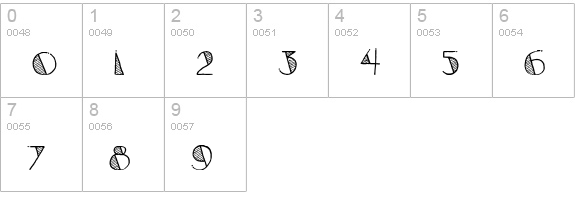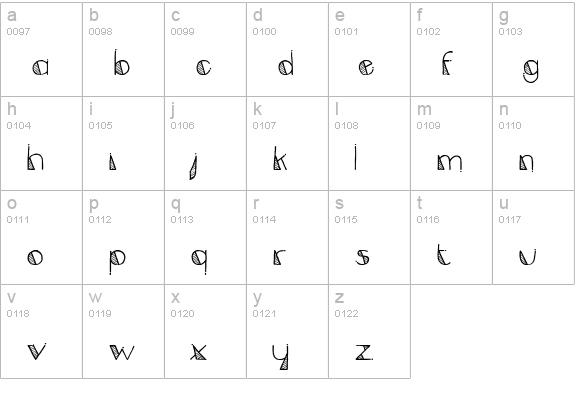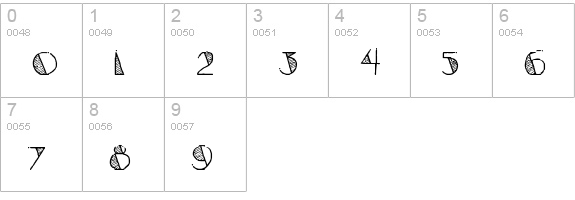
CK Wedge Font Details
Introducing CK Wedge font, a modern and stylish typeface that effortlessly combines elegance with a touch of playfulness. This unique font features clean lines and a distinctive wedge-shaped design that sets it apart from traditional fonts. CK Wedge is perfect for a variety of design projects, from branding and advertising to invitations and social media graphics. What sets CK Wedge font apart is not just its visually appealing design, but also the fact that it is available for free download at FontsMarket.com. Yes, you read that right - this stunning font can be yours at no cost, making it the perfect choice for budget-conscious designers and creatives looking to add a touch of sophistication to their work. Whether you're working on a professional project or a personal creative endeavor, CK Wedge font is sure to make a lasting impression. Download it today and elevate your designs with this versatile and eye-catching typeface.